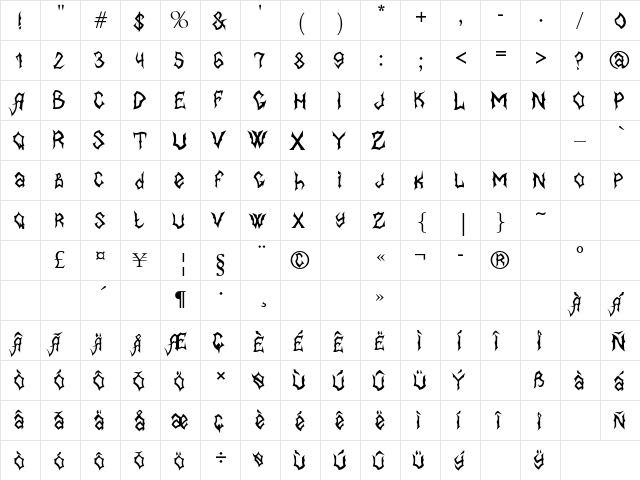
MB-BlackBook Type Regular
| Designer | ModBlackmoon |
Design Context for MB-BlackBook Type Typeface
MB-BlackBook Type is a composed and adaptable typeface that performs quietly and consistently across a wide range of design contexts.